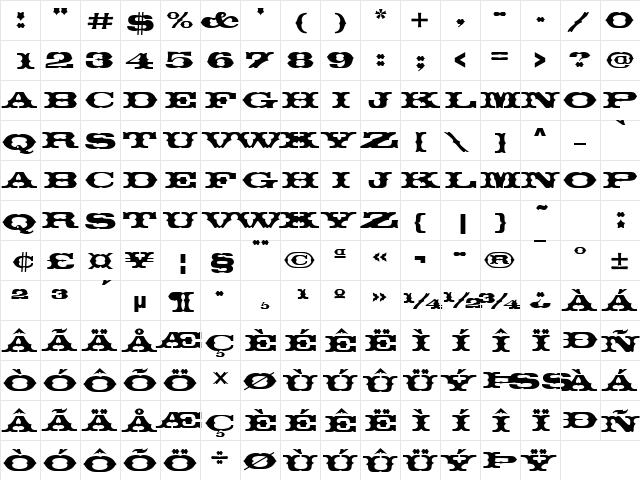
Thunderbird Becker Regular
Design Context for Thunderbird Becker Typeface
Thunderbird Becker is a composed and adaptable typeface that performs quietly and consistently across a wide range of design contexts.
Pro Tip: Use Thunderbird Becker in both headline and body roles to test its range before committing to a single application.